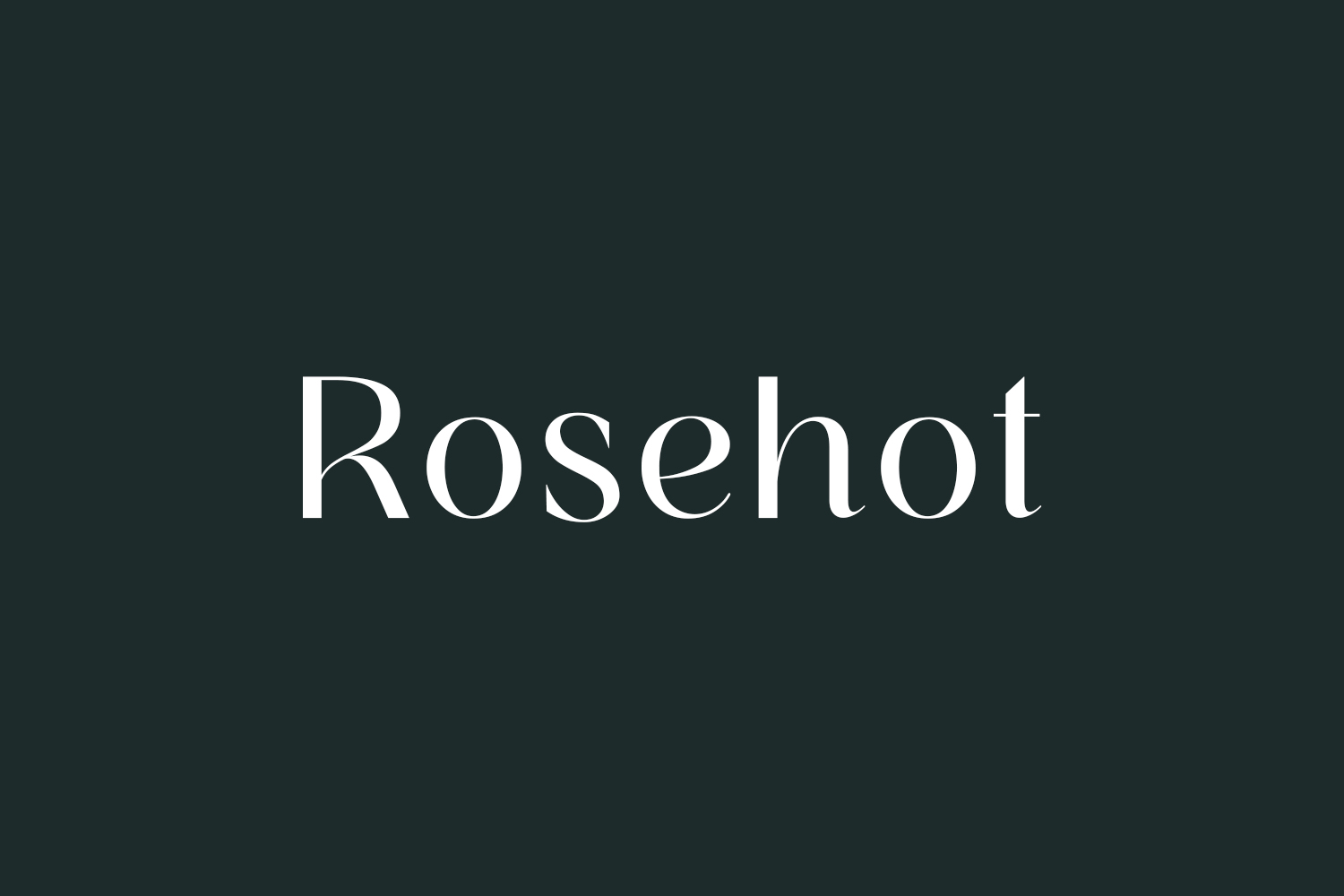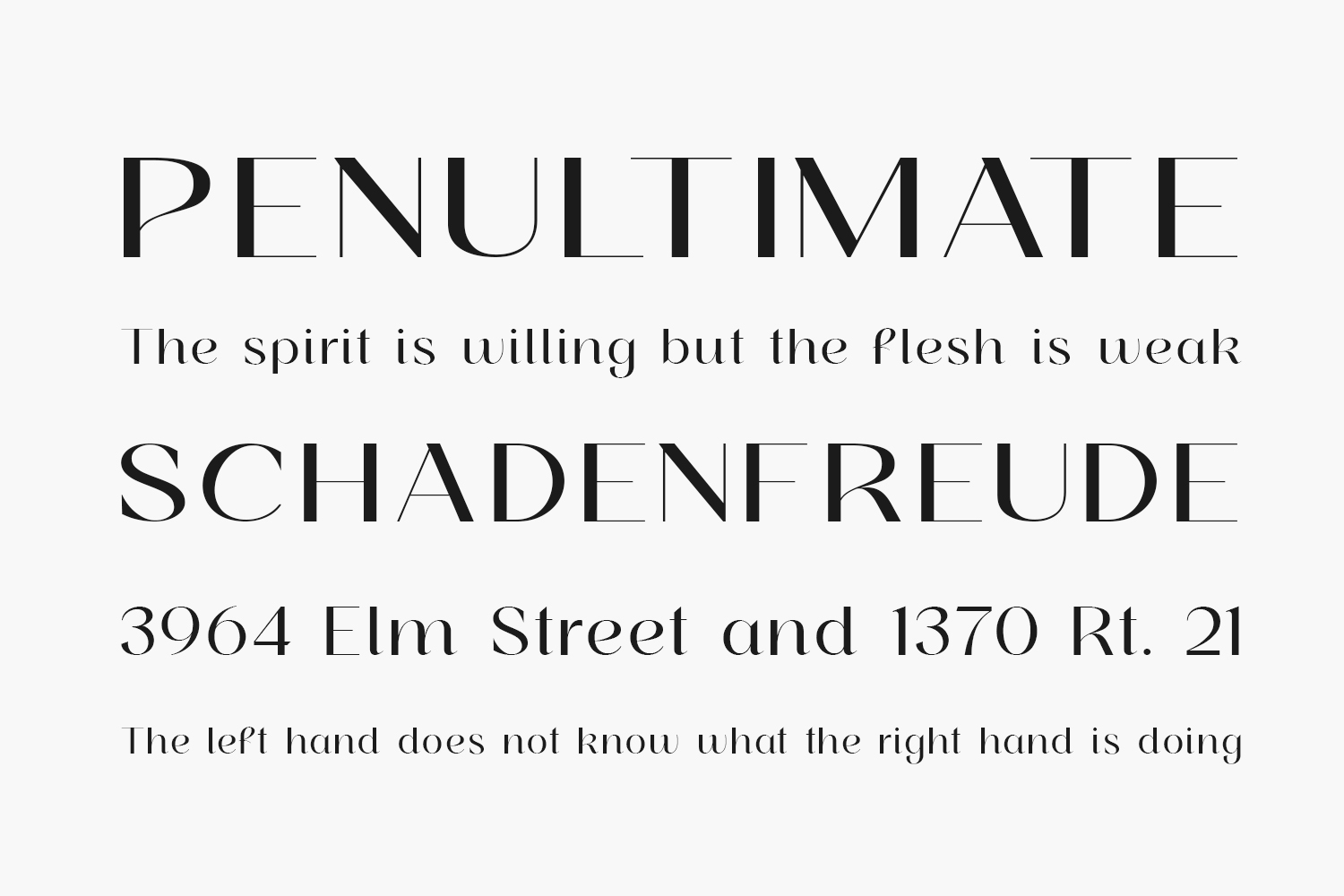
Experience the allure of Rosehot Free Font, a gracefully themed font that embodies a dynamic sans serif style. With impeccably smooth details and captivating curves, “Rosehot” delivers uniqueness and beauty in every stroke. Whether you’re working on creative endeavors with an elegant and polished concept, this typeface is the perfect companion for your projects. Let Rosehot elevate your designs to new heights of sophistication and grace. Rosehot Free Font is free for personal or commercial use.
Designed by Alit Design